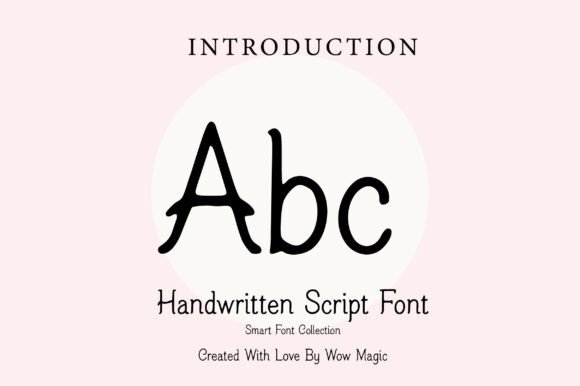
Introducing Hand Font: The Soft, Organic Handwritten Serif for Your Creative Projects
In the world of typography, a font can make all the difference in conveying the tone and personality of your message. For designers and crafters seeking a sophisticated, understated aesthetic, the Hand font is an excellent choice. This soft, organic handwritten serif font blends natural curves with subtle character details, inspired by authentic pen strokes. The result is a warm, personal, and slightly playful feel that maintains readability and structure.
The Characteristics of Hand Font
The Hand typeface is defined by its gently uneven lines and handcrafted touch, giving it a human, approachable personality. The font’s simplicity is its greatest beauty, making it the perfect companion to bold serifs or heavy display fonts. With its “Handwritten Script” DNA, the Hand typeface brings a sense of intimacy and care to your work, ensuring your message feels handcrafted rather than just typed.
Perfect for a Variety of Creative Projects
The Hand font is incredibly versatile and can be used to enhance a wide range of creative projects, including:
- Minimalist packaging: Add a touch of elegance and sophistication to your product packaging with the Hand font.
- Delicate social media quotes: Share inspiring quotes and messages with a personal, handwritten feel.
- Romantic book covers: Create a captivating and emotional connection with your readers through the use of the Hand font.
- Branding: Establish a unique and recognizable identity for your business or product.
- Blog headers: Add a personal touch to your blog and make it stand out from the crowd.
- Social media graphics: Create engaging and shareable content with the Hand font.
- Greeting cards and invitations: Add a touch of warmth and personality to your cards and invitations.
- Educational materials: Make learning more engaging and fun with the Hand font.
- Creative projects: Bring your artistic vision to life with the Hand font.
Why Choose the Hand Font?
The Hand font is the ultimate toolkit for designers seeking a sophisticated, understated aesthetic. Its unique characteristics make it an excellent choice for a variety of projects, including:
- Readability: The Hand font maintains a high level of readability, making it perfect for body text and captions.
- Flexibility: The font’s simplicity and elegance make it suitable for a wide range of creative projects.
- Uniqueness: The Hand font’s handcrafted touch and handwritten feel set it apart from more traditional fonts.
Tips for Using the Hand Font
To get the most out of the Hand font, consider the following tips:
- Pair with bold fonts: Combine the Hand font with bold serifs or heavy display fonts to create a striking contrast.
- Use for quotes and titles: The Hand font is perfect for highlighting quotes, book titles, and headings.
- Experiment with colors: The Hand font works well with a variety of colors, so don’t be afraid to experiment and find the perfect combination.
The Hand font is a versatile and elegant addition to any designer’s toolkit. Its unique blend of natural curves and subtle character details makes it perfect for a wide range of creative projects. Whether you’re looking to add a touch of sophistication to your packaging, create engaging social media graphics, or bring a personal touch to your educational materials, the Hand font is an excellent choice. With its readability, flexibility, and uniqueness, the Hand font is sure to become a favorite among designers and crafters.